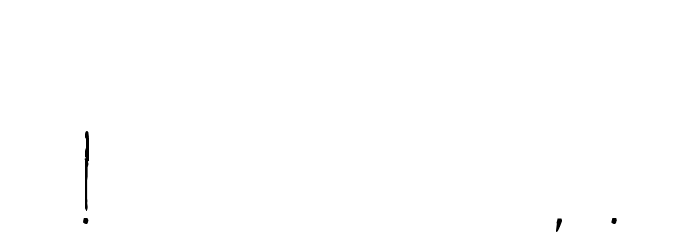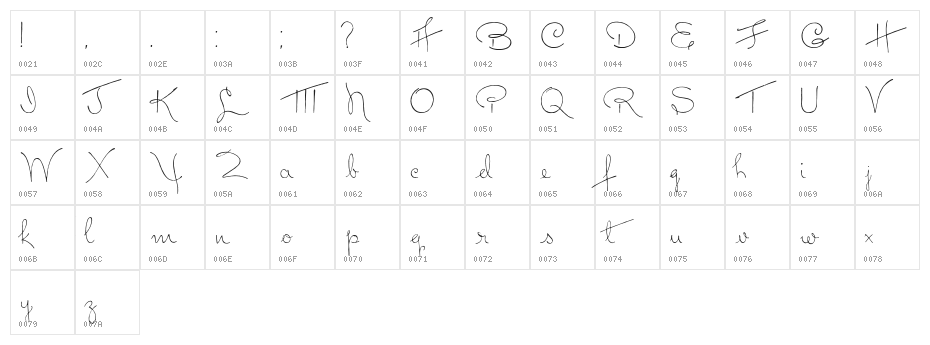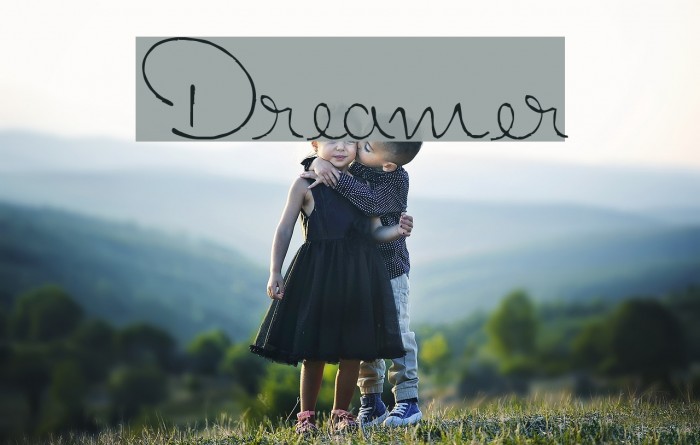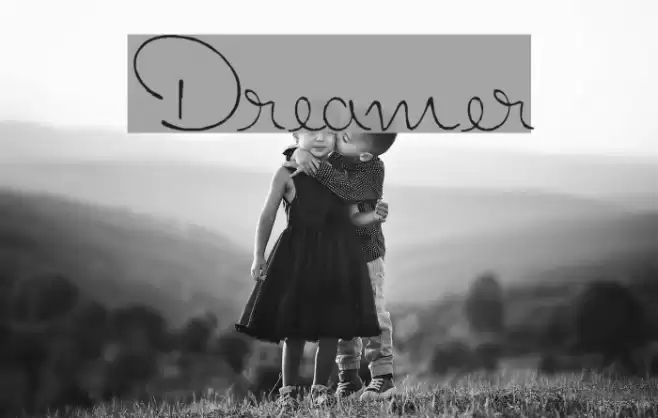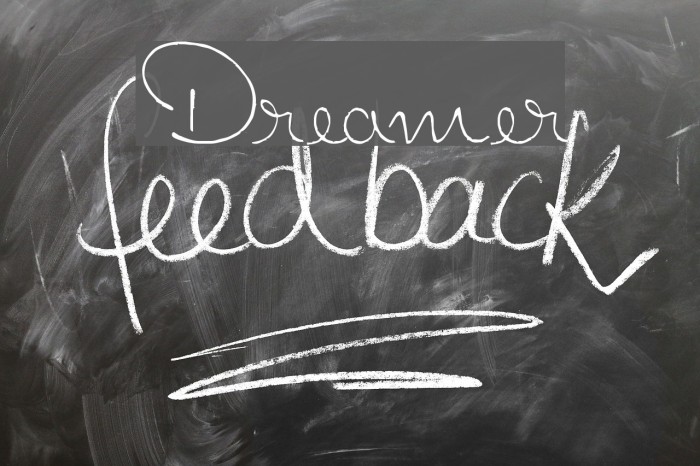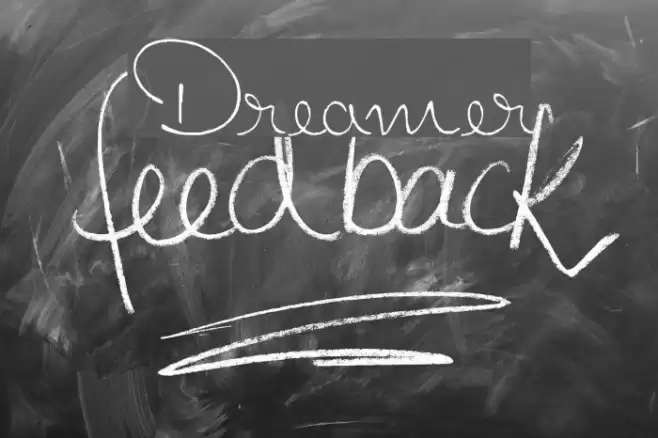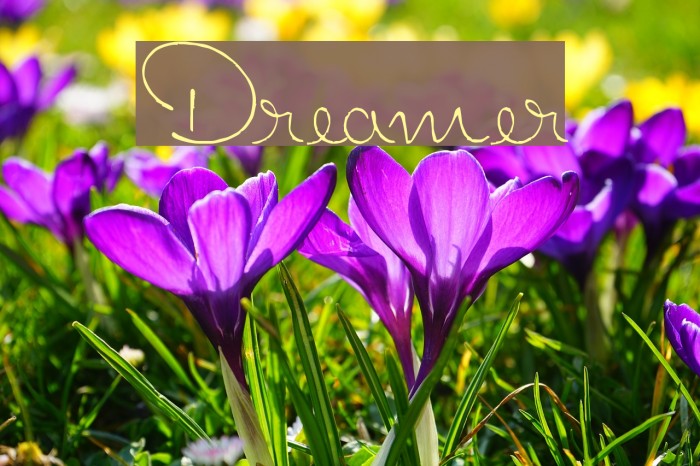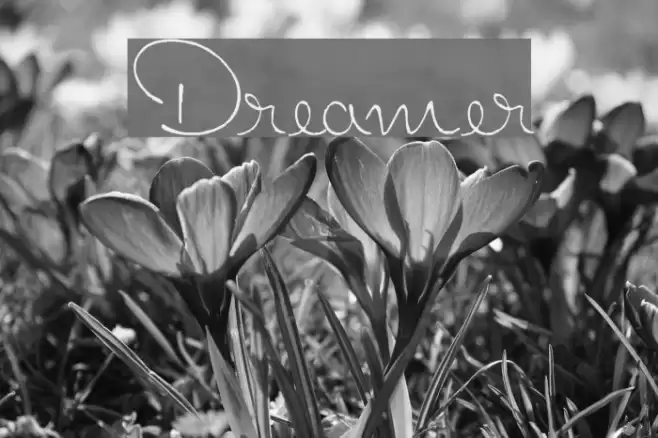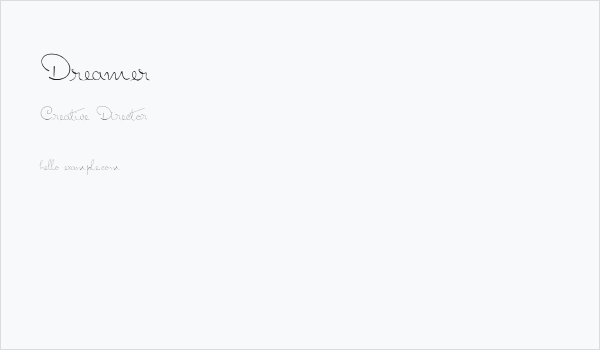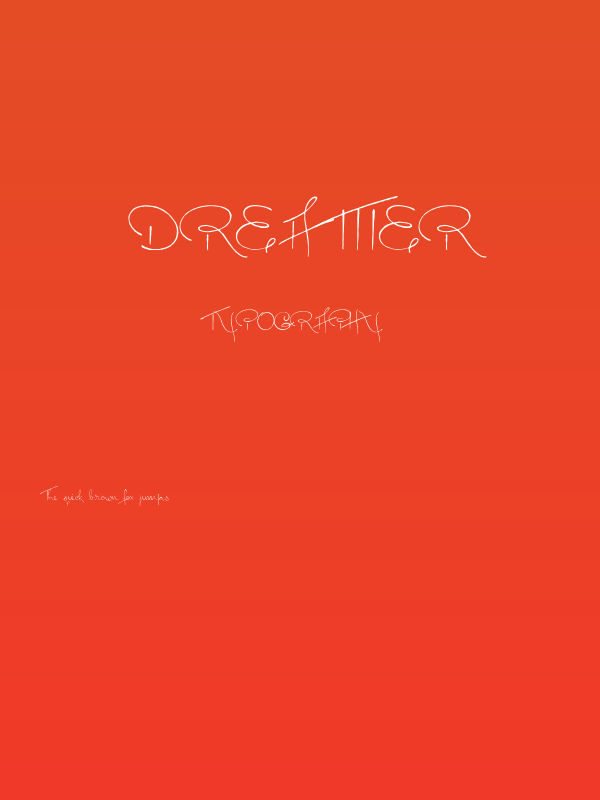
Dreamer Font
Dreamer Description
This font features a whimsical, handwritten style with a playful and artistic flair. The letters are connected in a cursive manner, giving it a fluid and dynamic appearance. The strokes are thin and delicate, adding an elegant touch to the overall design. The uppercase letters are distinct with unique loops and curves, while the lowercase letters maintain a consistent flow. The special characters, such as the exclamation mark and question mark, are creatively integrated into the design, enhancing its artistic appeal. This font exudes a sense of creativity and individuality, making it suitable for projects that require a personal and expressive touch.